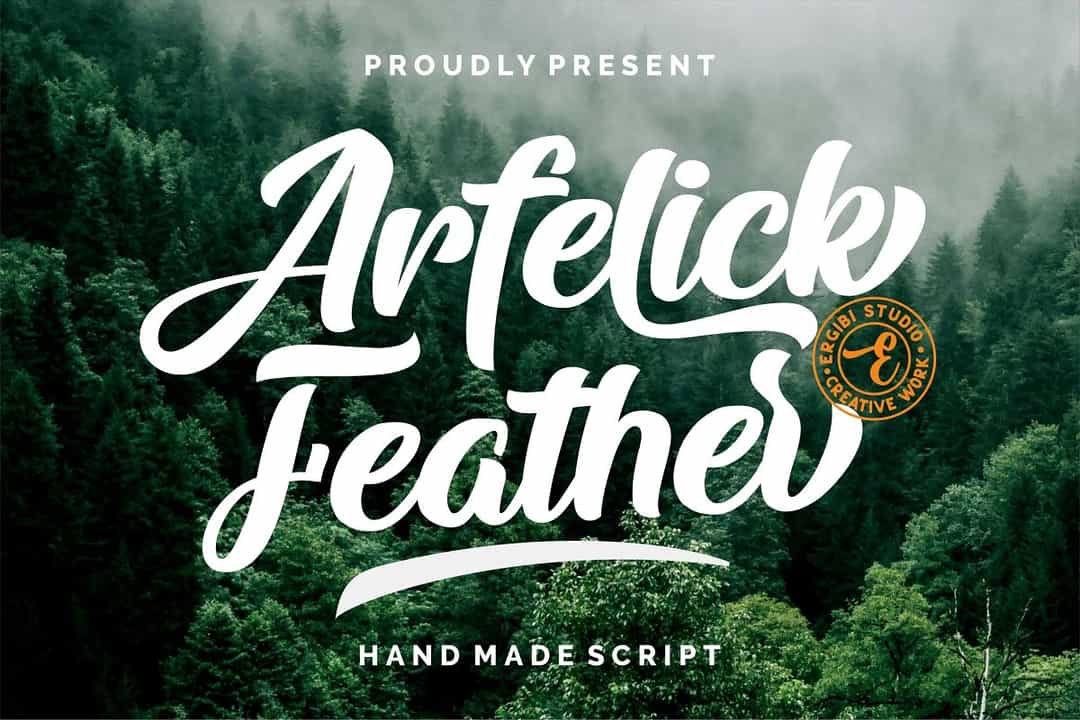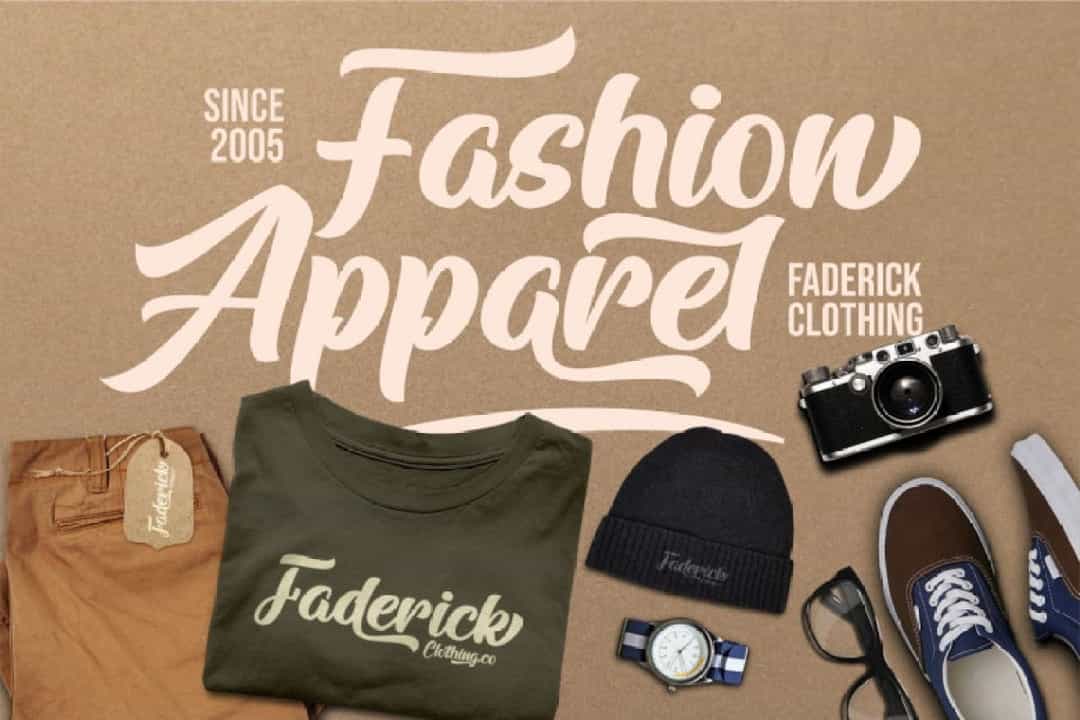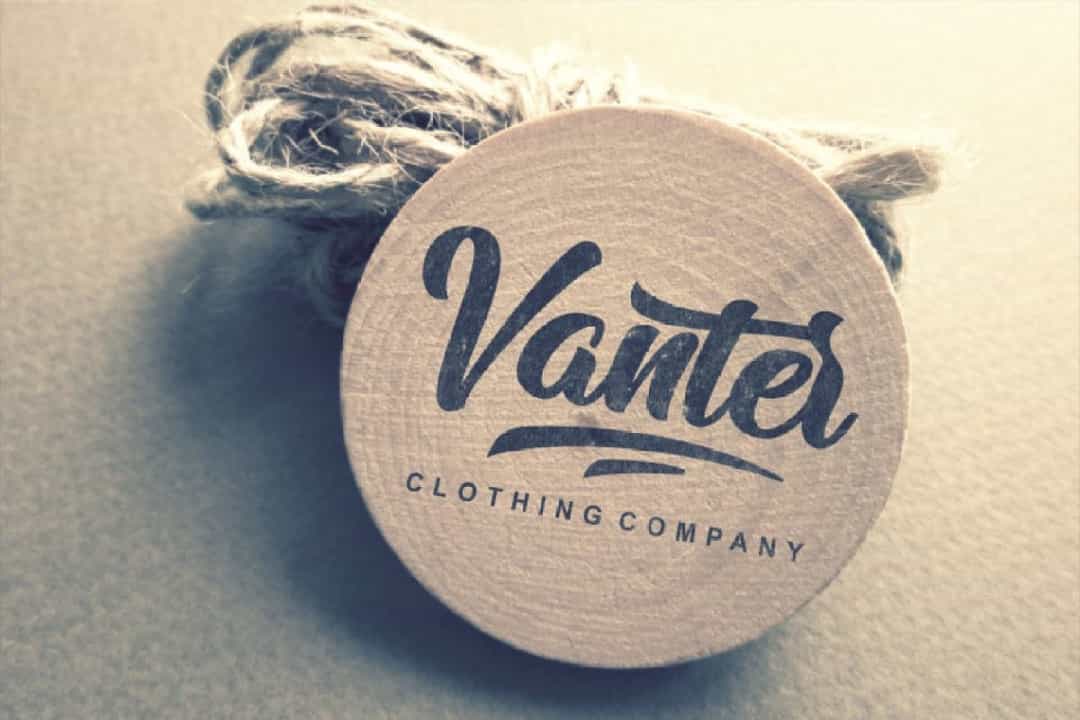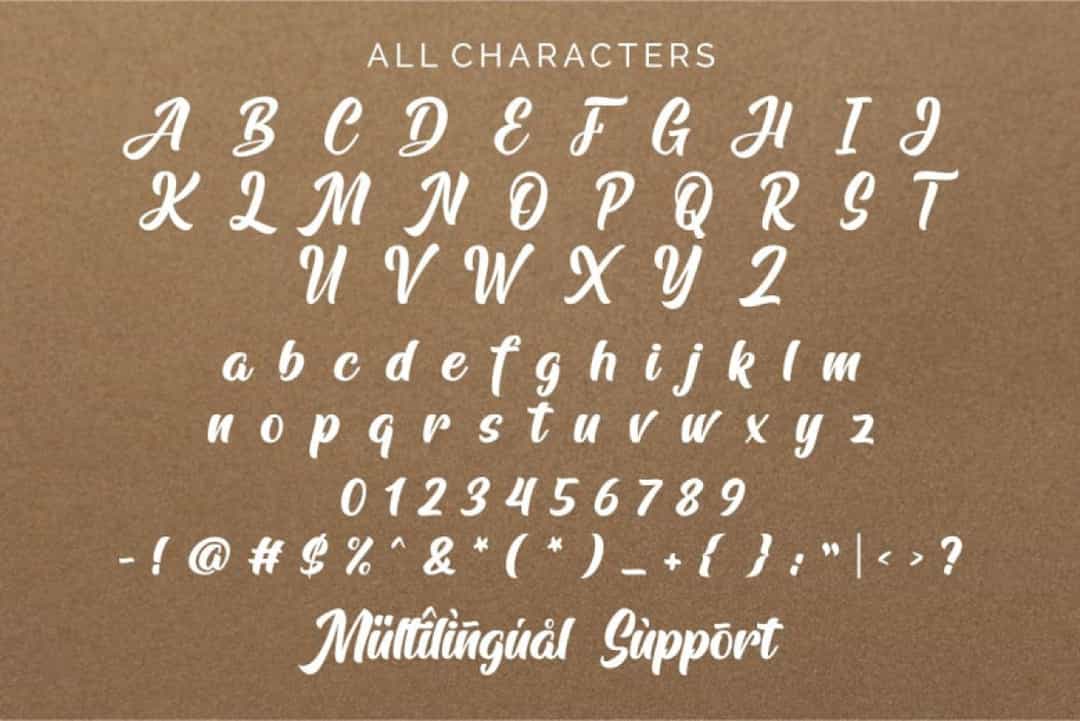
Discover Arfelick Feather Handmade Bold Script Font, part of the Calligraphy Script collection—a versatile and unique font perfect for adding a personal touch to your projects. Download it for free and enjoy crafting designs with style, from invitations to social media posts. This font is available exclusively for personal use, giving you the freedom to create without limits. Unlock your creativity with Arfelick Feather Handmade Bold Script Font today!
Arfelick Feather font here is introduced. Based on the urban style of writing, it has a lovely lettering and creates elegant and stylish letters. Each letter was crafted to make the designs look more beautiful; drawn from contemporary fonts with aesthetic letters that give birth to formatted fonts with beautiful and fancy letters that you will surely find inspiring!